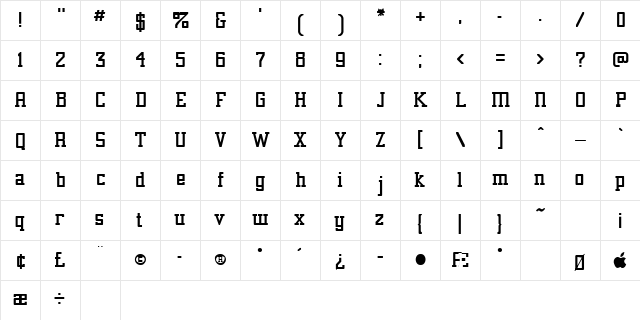
ALEPPO Regular
Design Context for ALEPPO Typeface
ALEPPO offers clean, dependable letterforms without strong stylistic allegiance, making it a practical choice for designers who need flexibility.
Pro Tip: Use ALEPPO in both headline and body roles to test its range before committing to a single application.